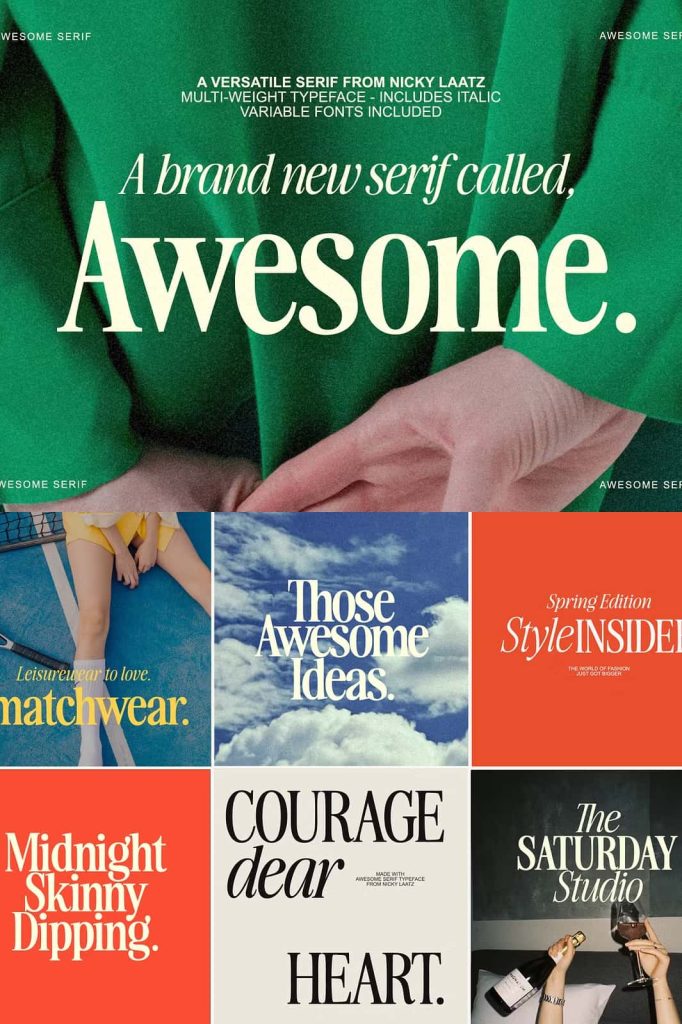
The Awesome Serif Family (32 Fonts)coreografyMay 1, 2025Fonts Awesome Serif is stylish, but with a retro edge. It’s was created to be super versatile Download